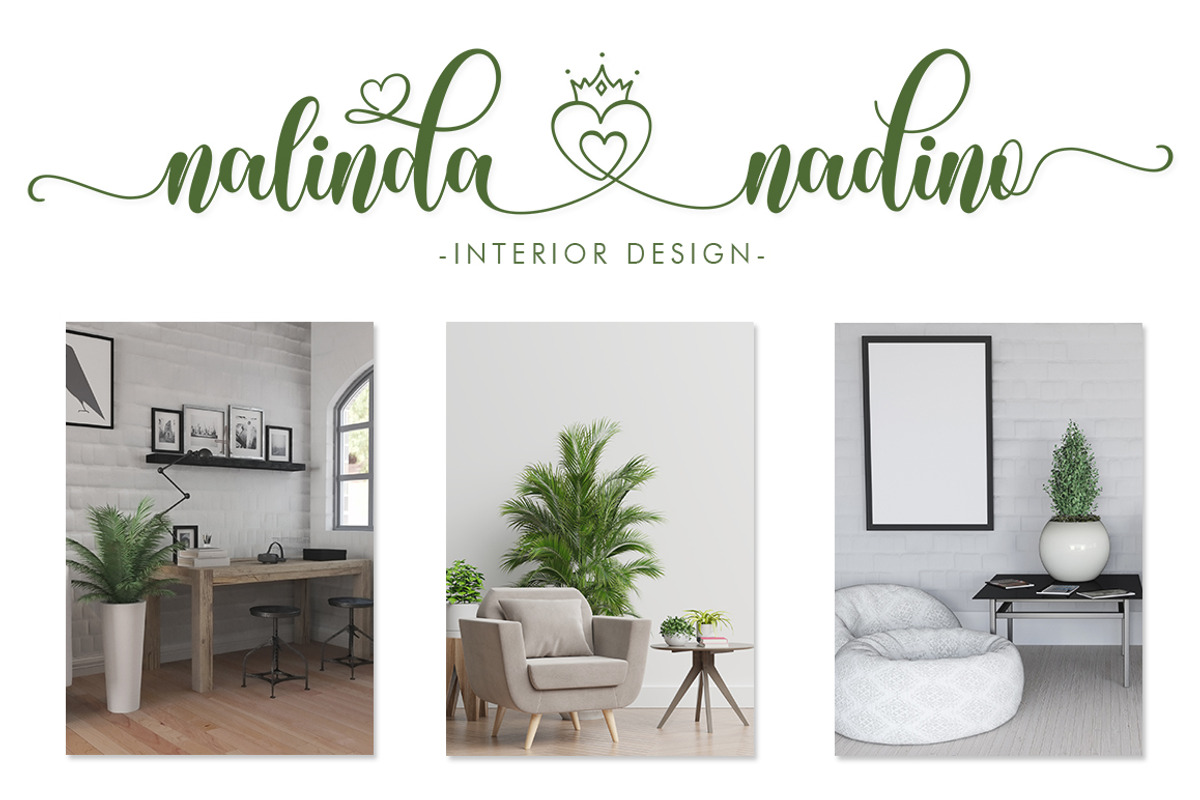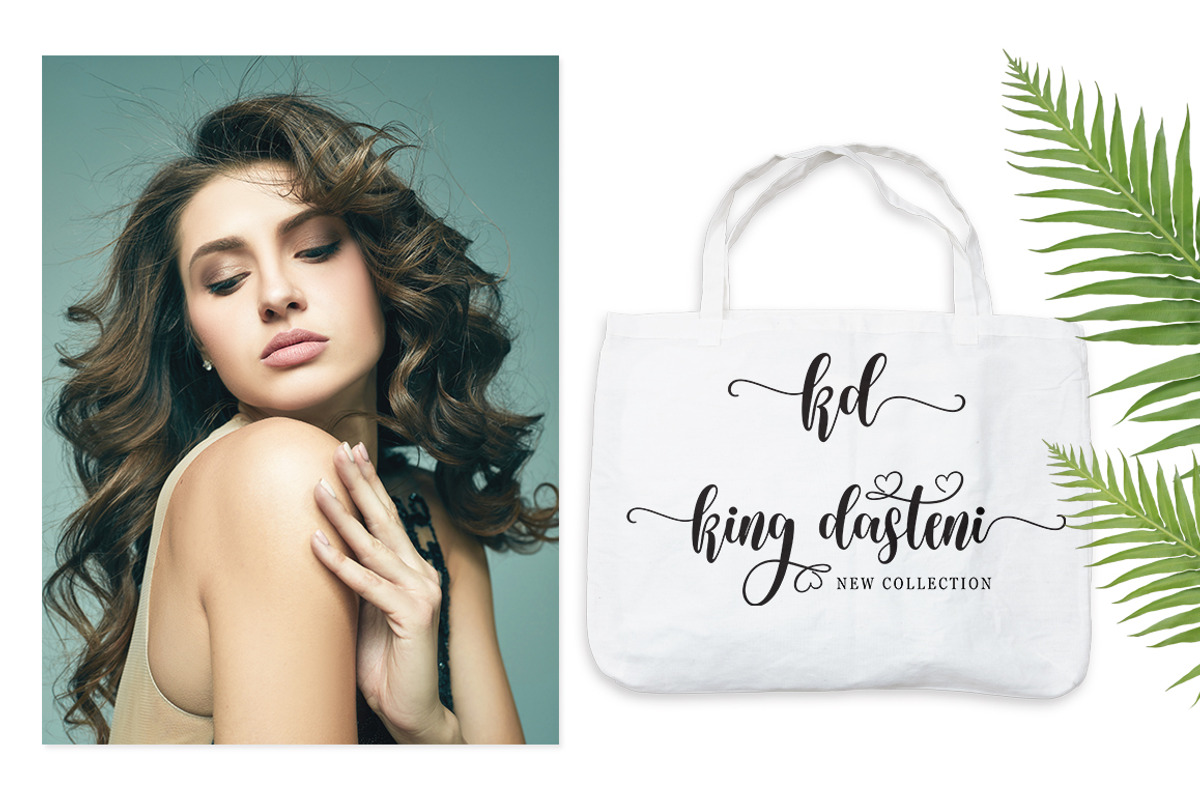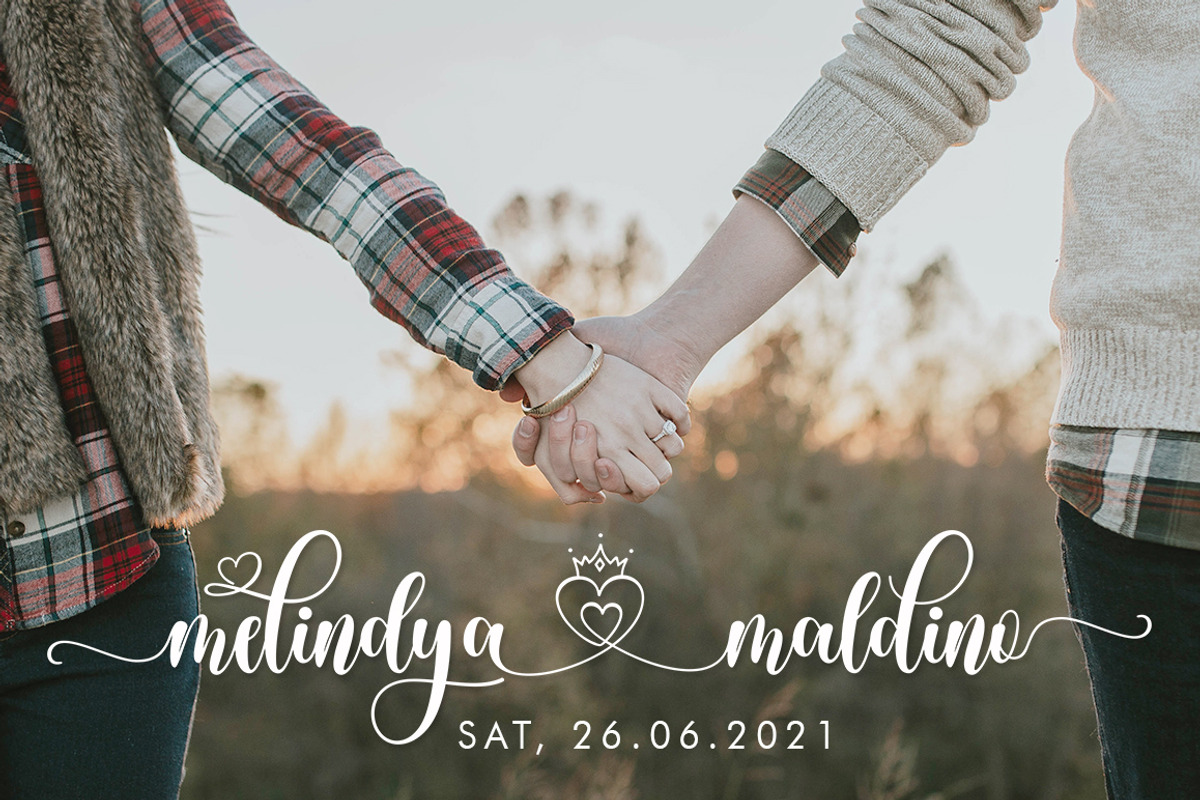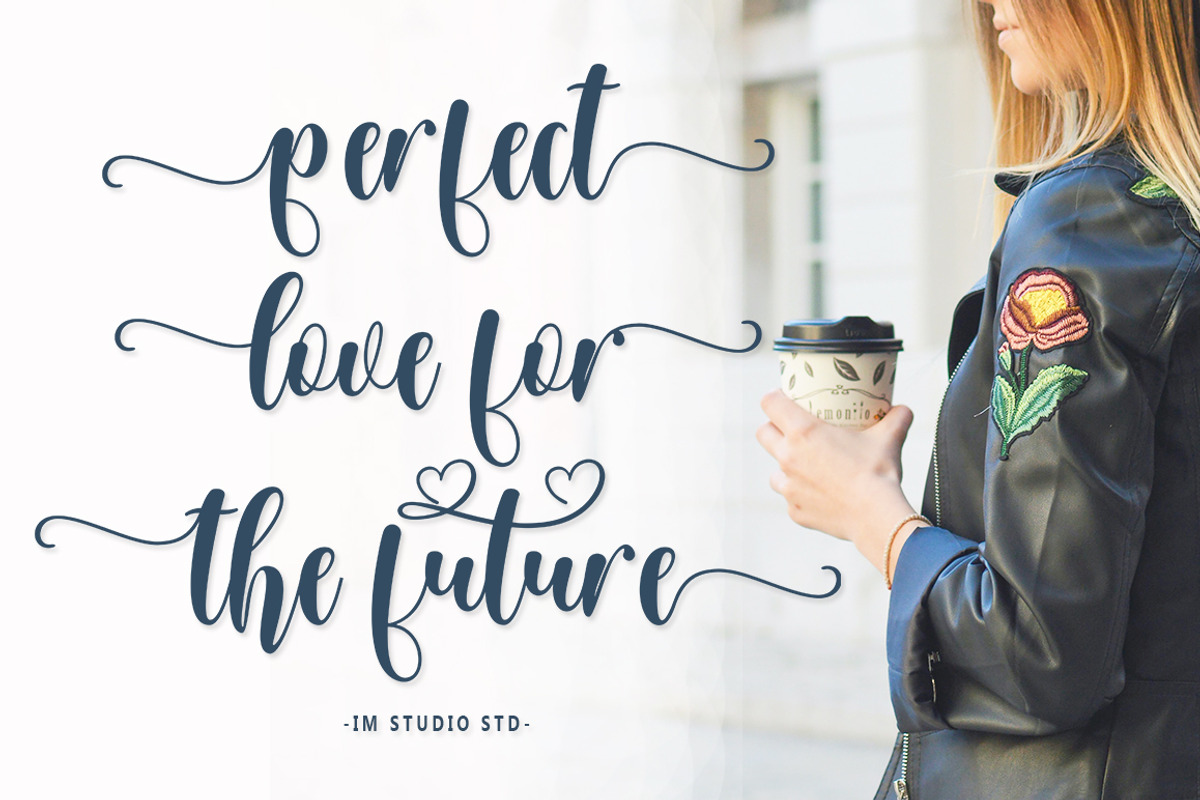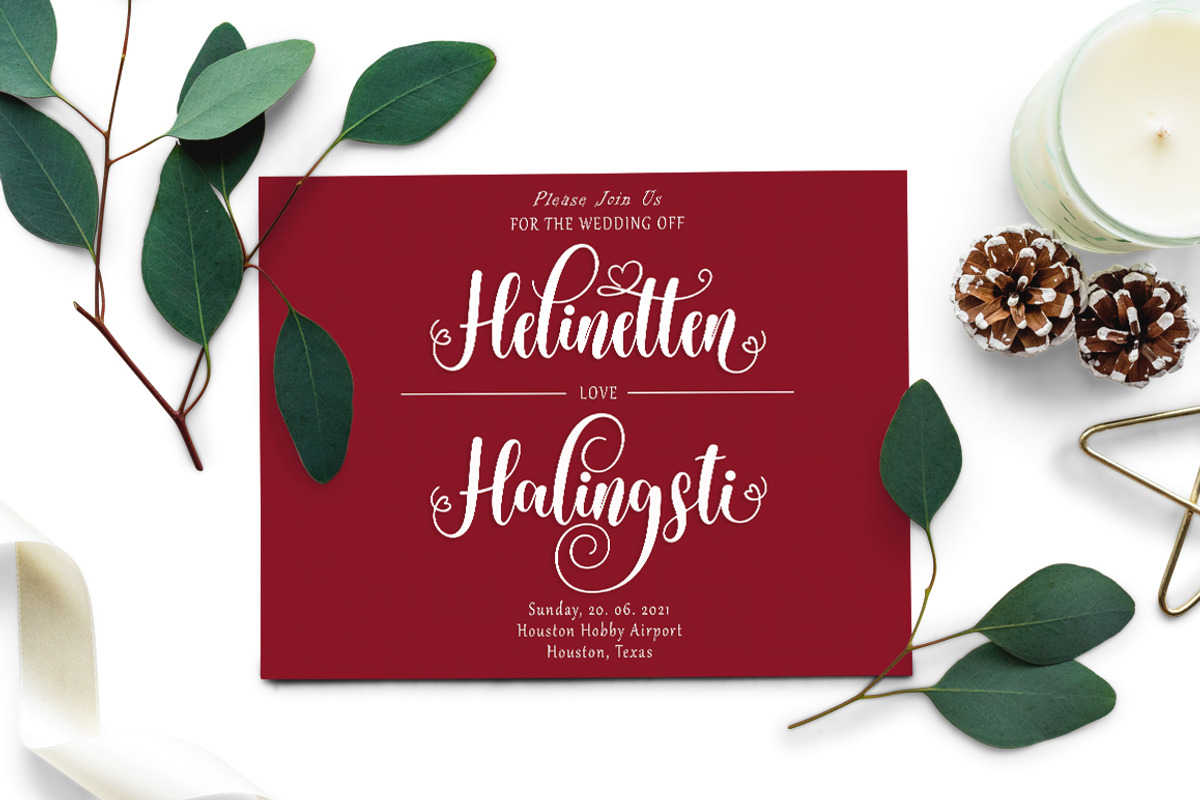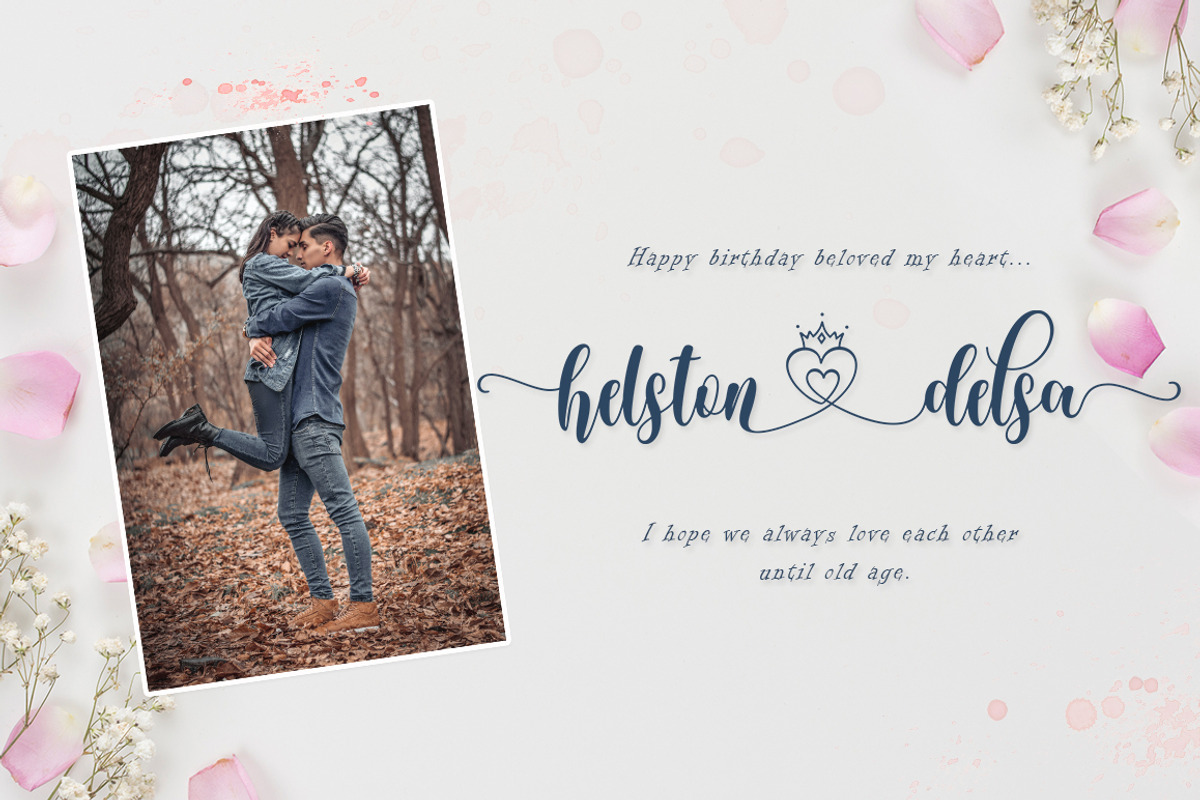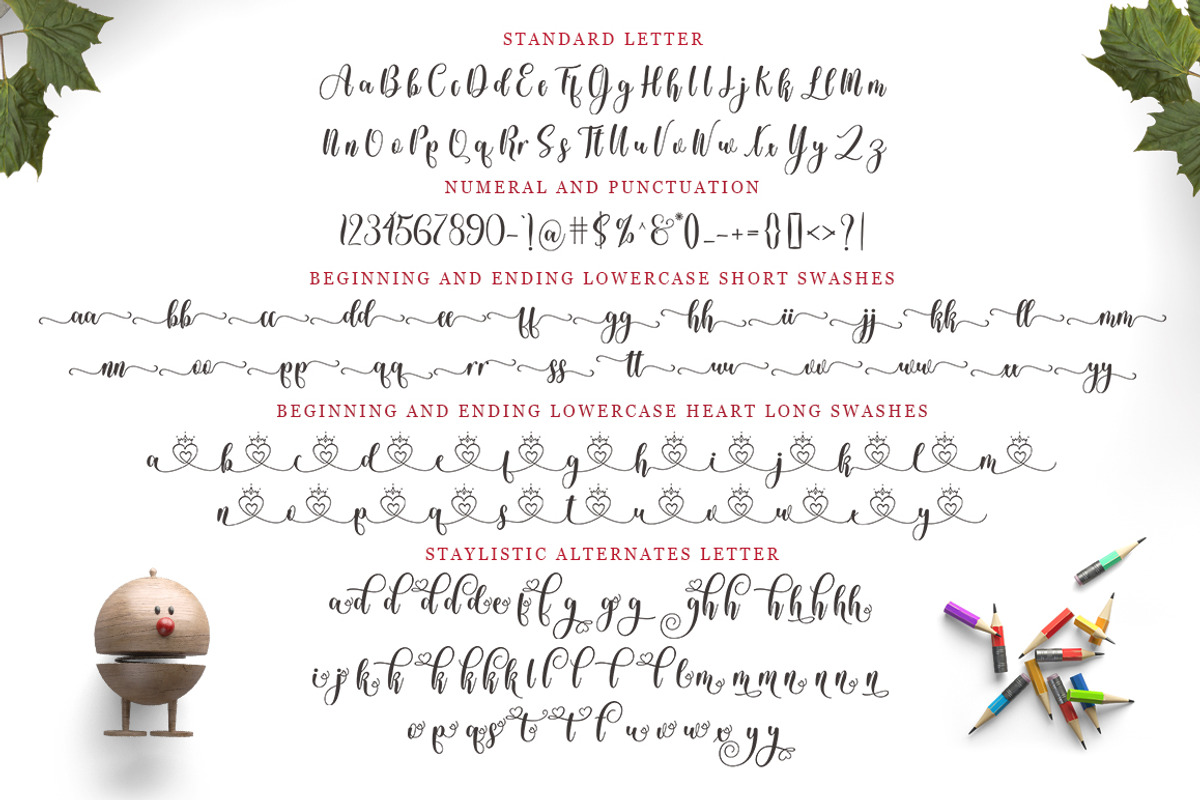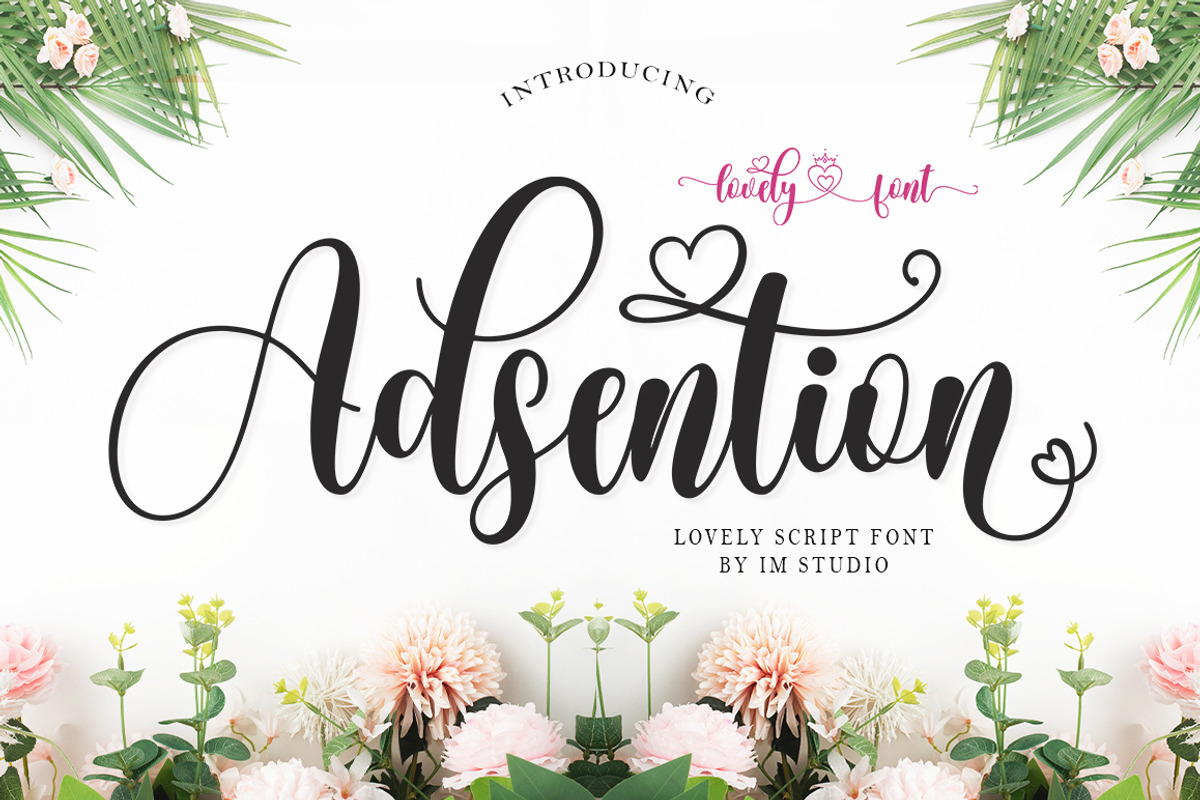
Adsention.
Script Adsention - new, fresh, funny, catchy, funny calligraphy font with a relatable heart. Great for greeting cards, branding materials, business cards, quotes, posters and more!